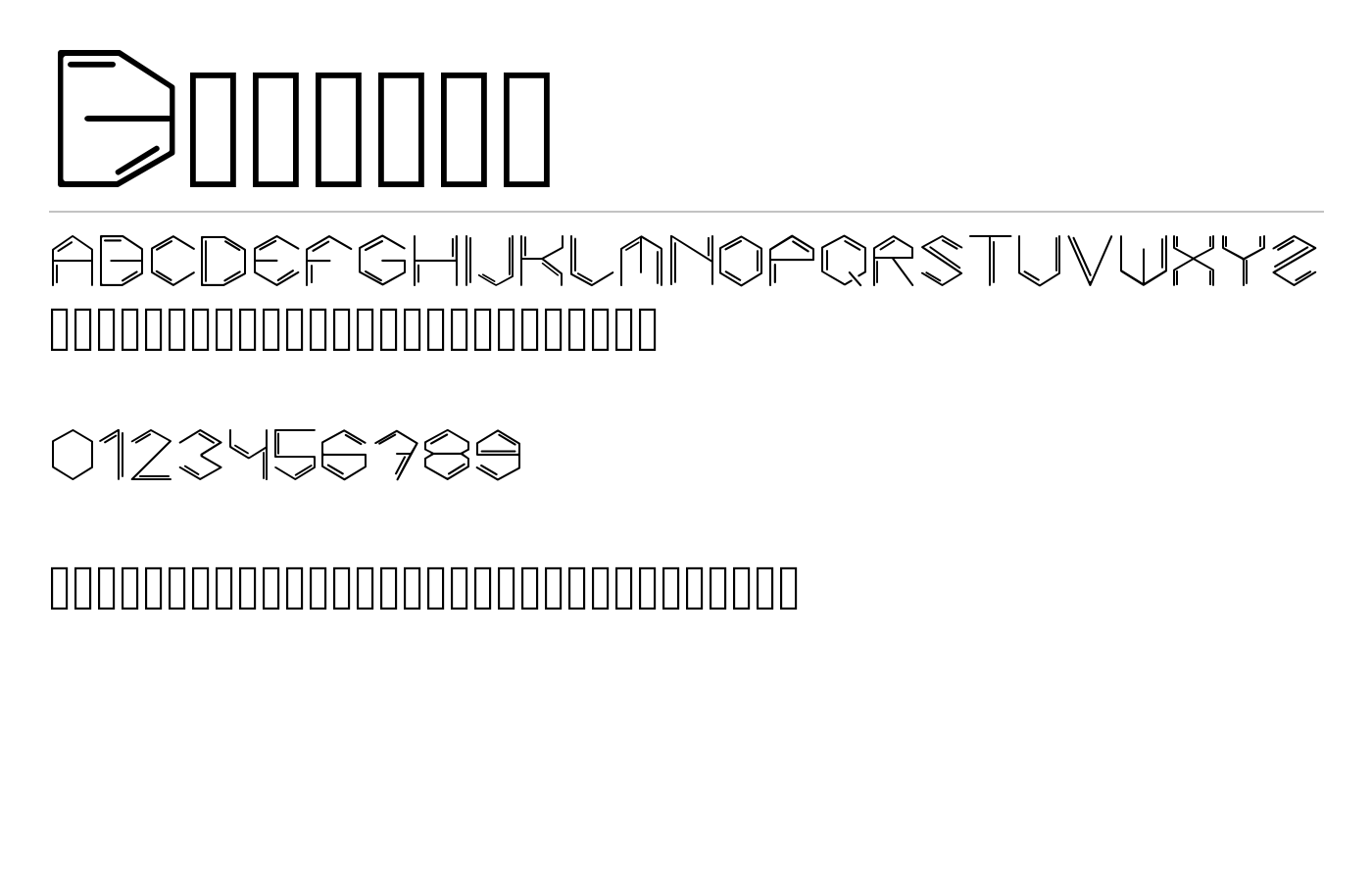
Benzeno is a geometric, futuristic sans serif font characterized by its outlined, angular letterforms and narrow width, giving it a technical and modern look. Its clean lines and high x-height make it stand out in digital and branding design, particularly where a sleek, sci-fi or tech-inspired aesthetic is desired. This font works well for logos, posters, and headlines where a contemporary and cutting-edge vibe is key.
Benzeno Font